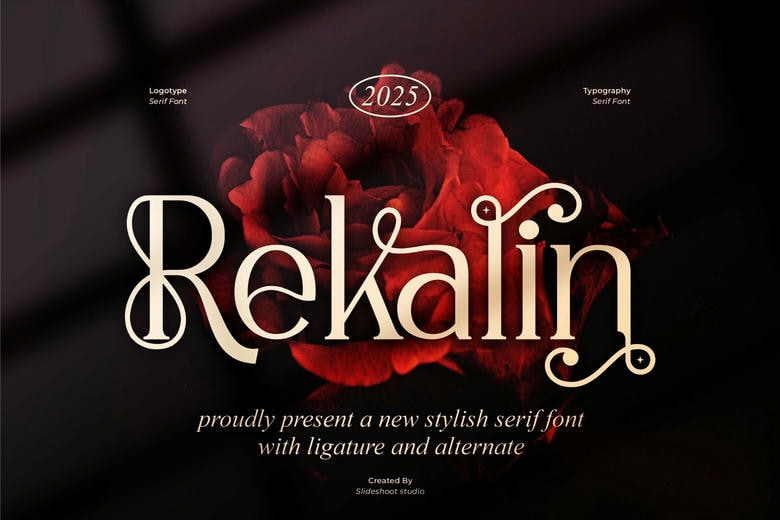
Rekalin Font
Rekalin is a modern serif font, trendy, elegant, and stylish font. It has a unique character. It is perfect to be combined with invitation card designs, company logos, movie titles, movie names, business cards, book titles, brand names, and various other designs.
Rekalin Serif Font